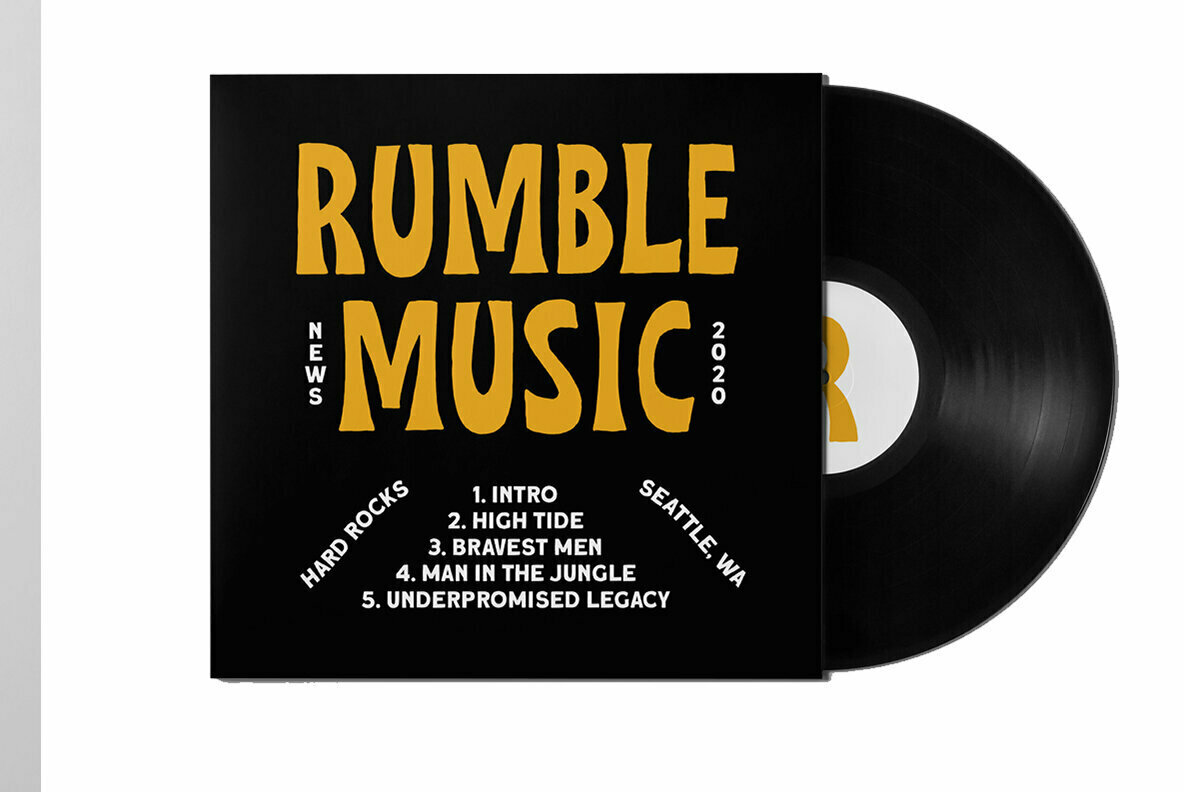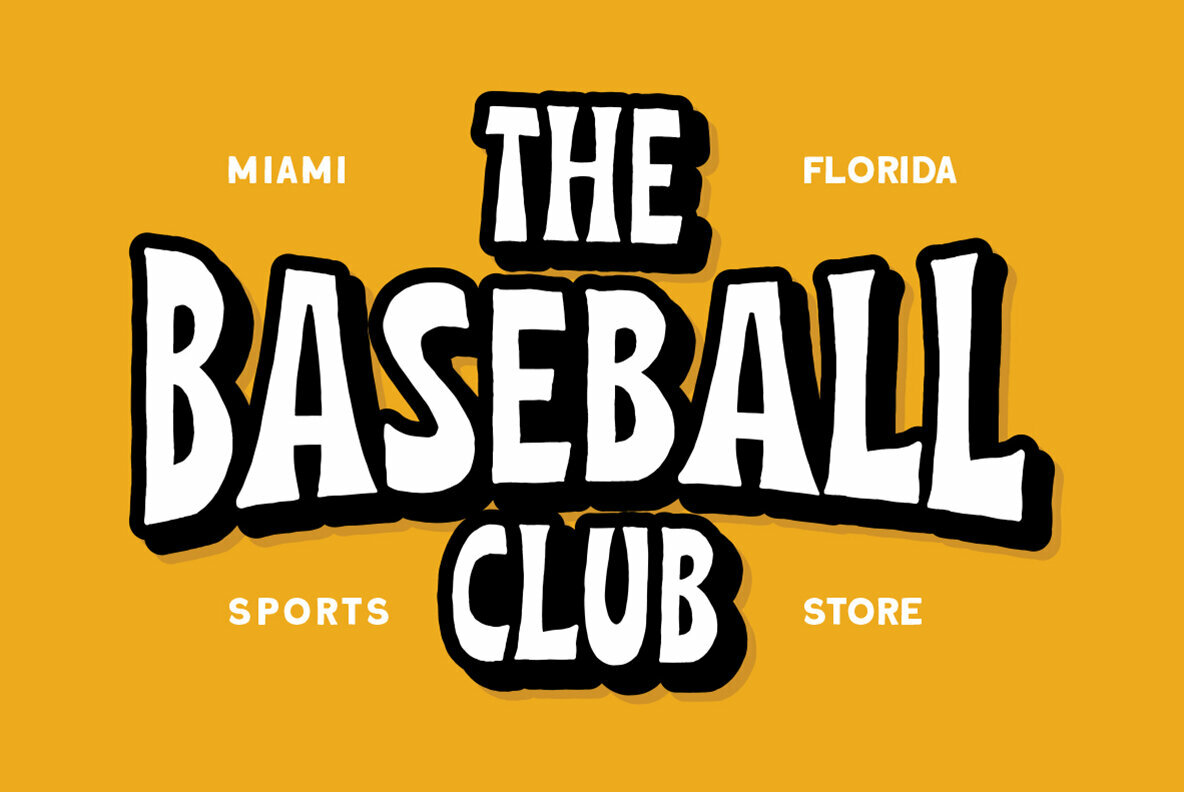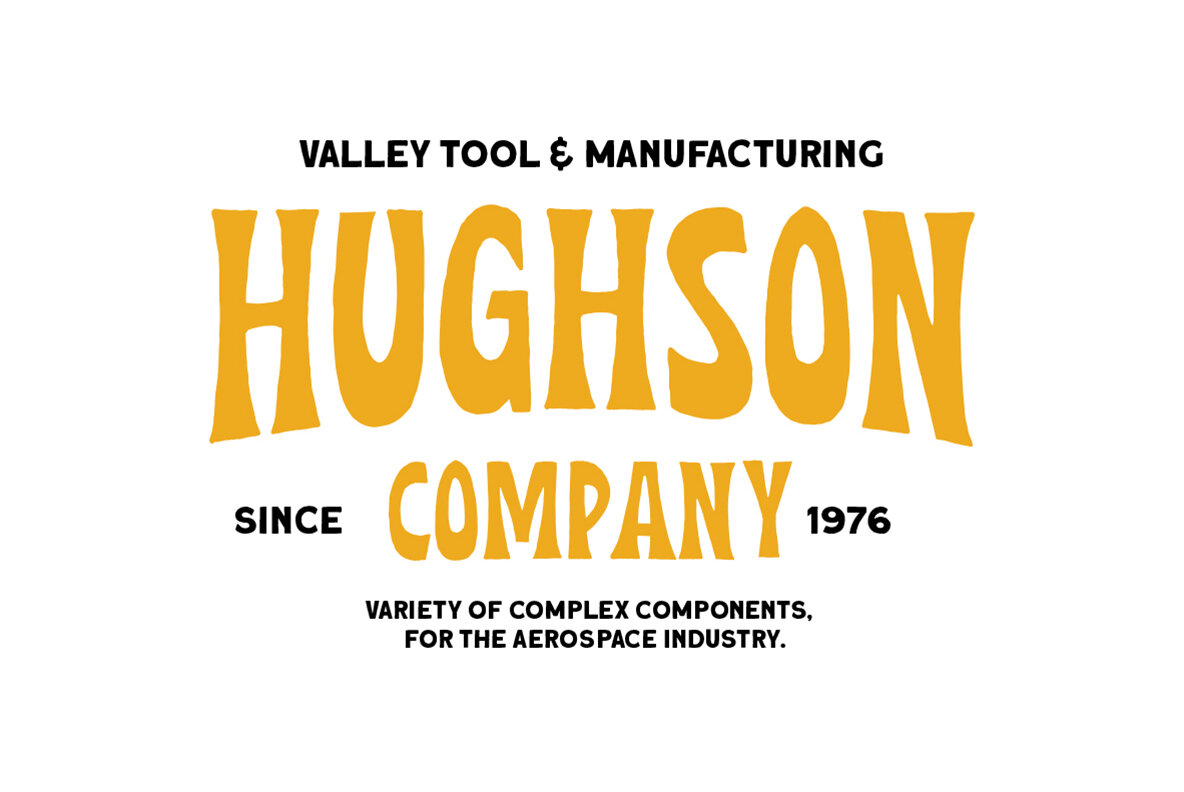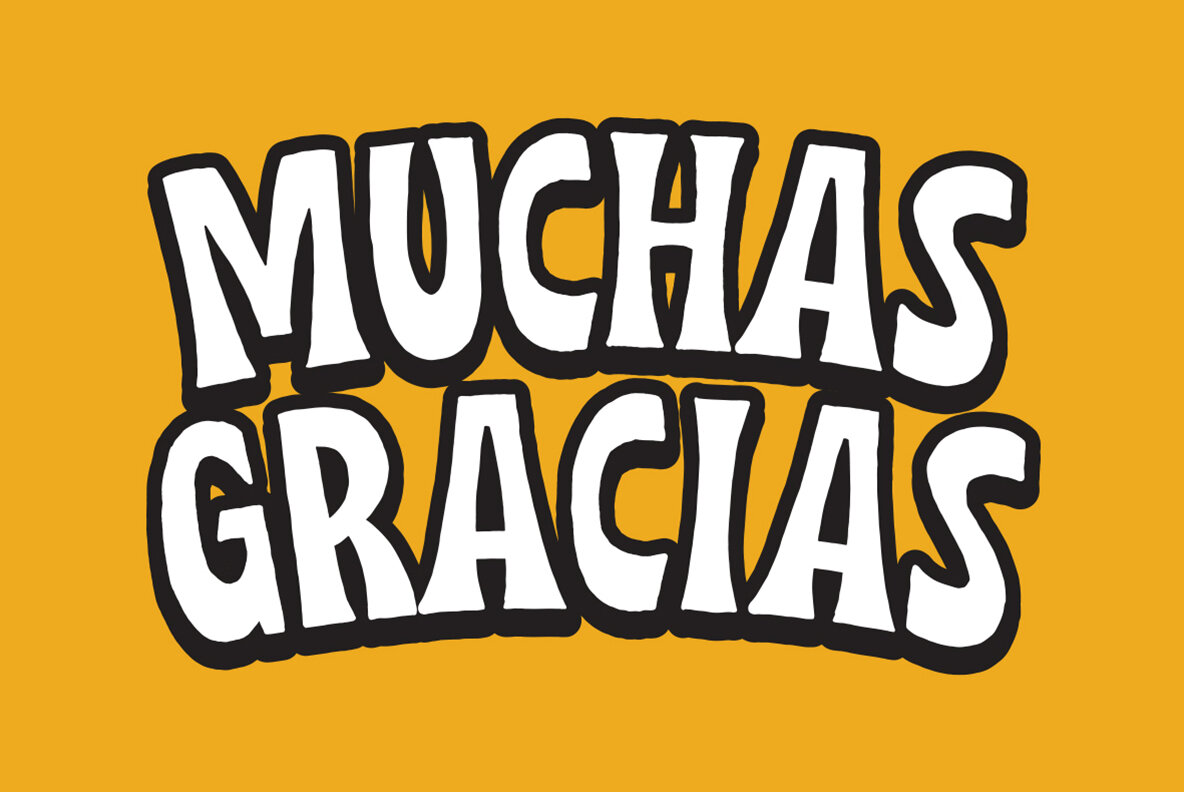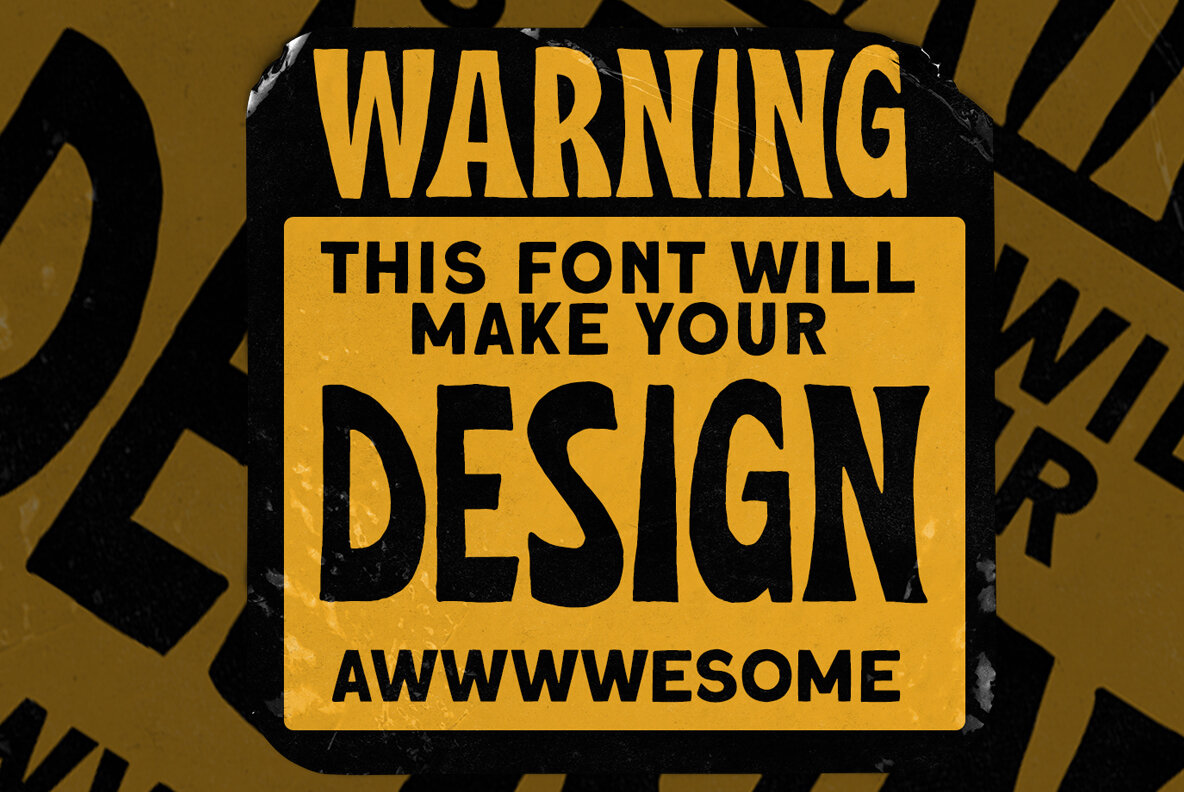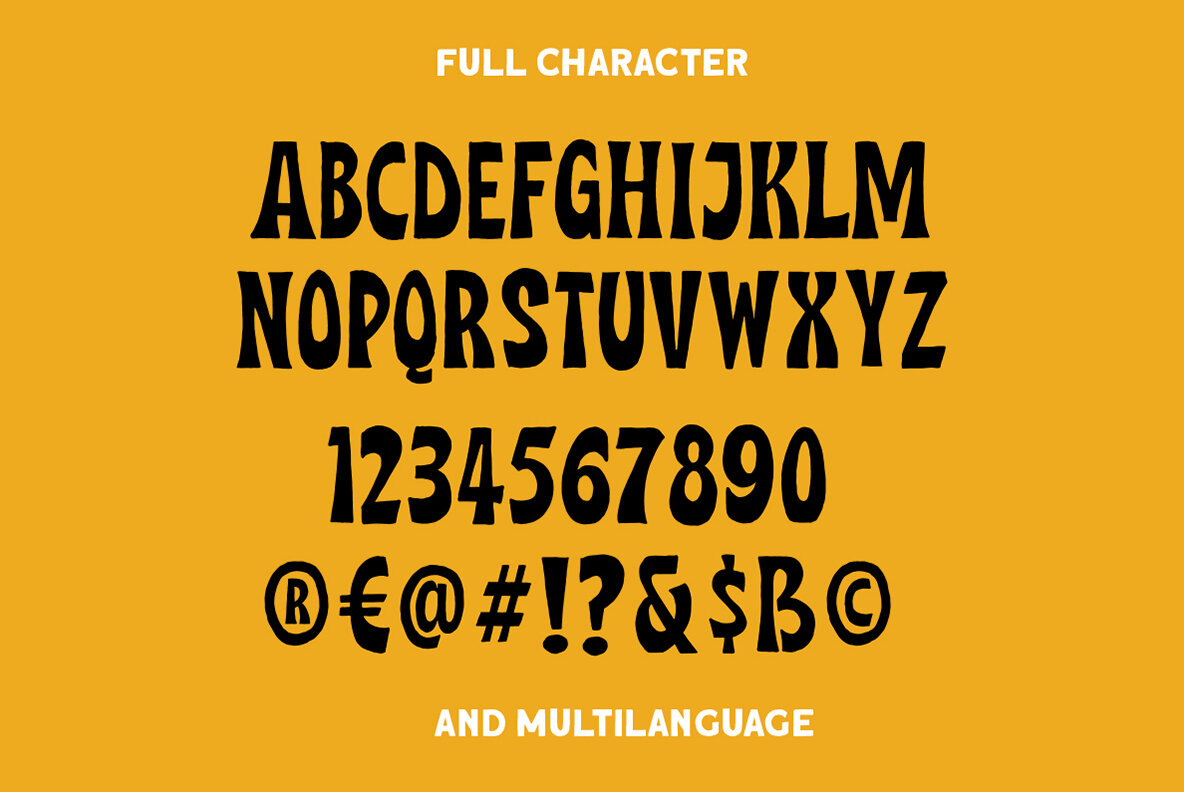
Midgeto Font
Midgeto Regular
Midgeto Slant
The Midgeto Display font by Letterhend Studio offers a distinctive hand-drawn allure that captures casual and whimsical themes effortlessly. Its playful design is ideal for logos and expansive enough for more formal contexts, such as invitations and labels. Additionally, its versatility extends into various creative realms including magazines, wedding cards, packaging, and advertising. Features: For optimal use, it is advisable to utilize a program supporting OpenType features and Glyphs panels, such as Adobe applications or Corel Draw, to fully appreciate and access its diverse glyph variations.Midgeto Display: Hand-Drawn Charm for Playful Designs